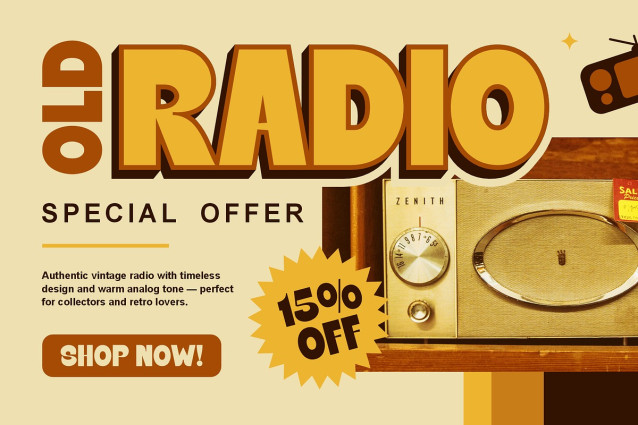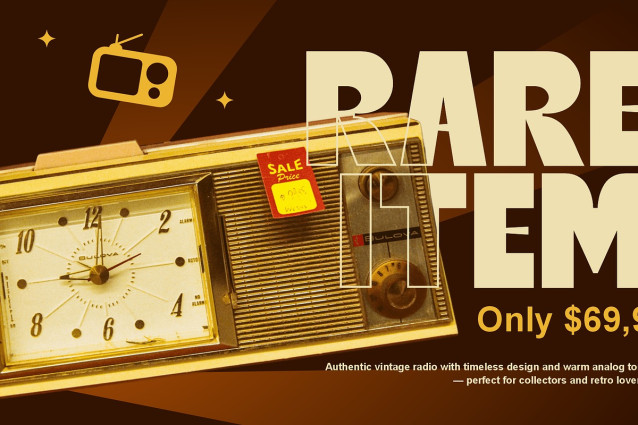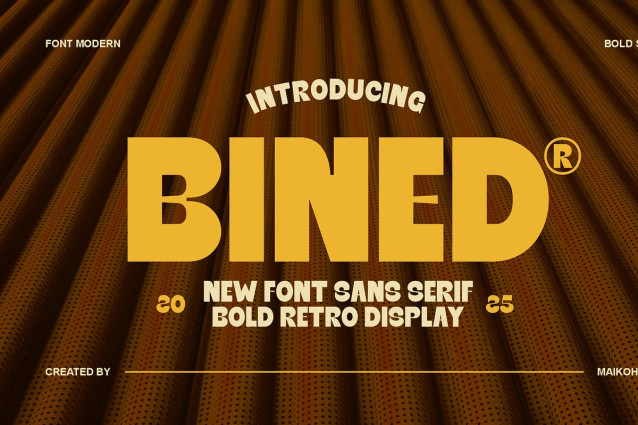
Bined Font is a modern sans serif typeface with a bold retro aesthetic, combining vintage charm and contemporary strength. Its thick, geometric letterforms make it perfect for impactful headlines, logos, posters, and branding that demand attention. Designed with clean curves and strong visual balance, Bined delivers a nostalgic yet fresh look suitable for both digital and print projects.